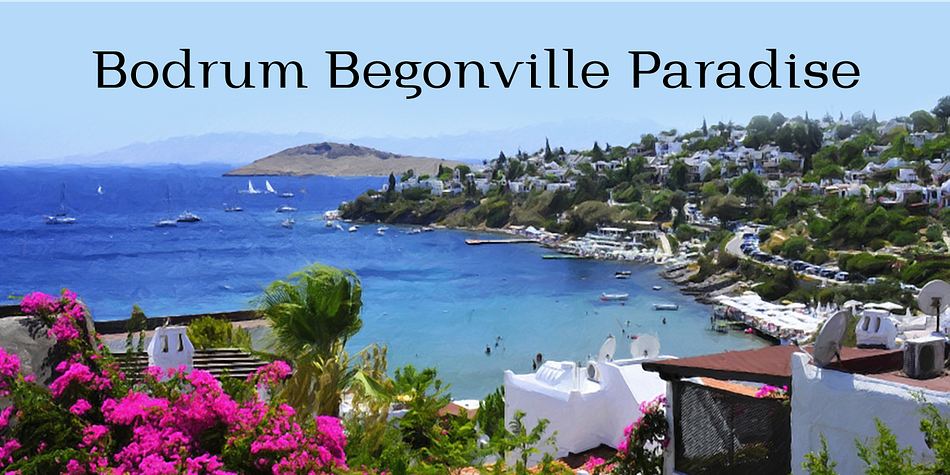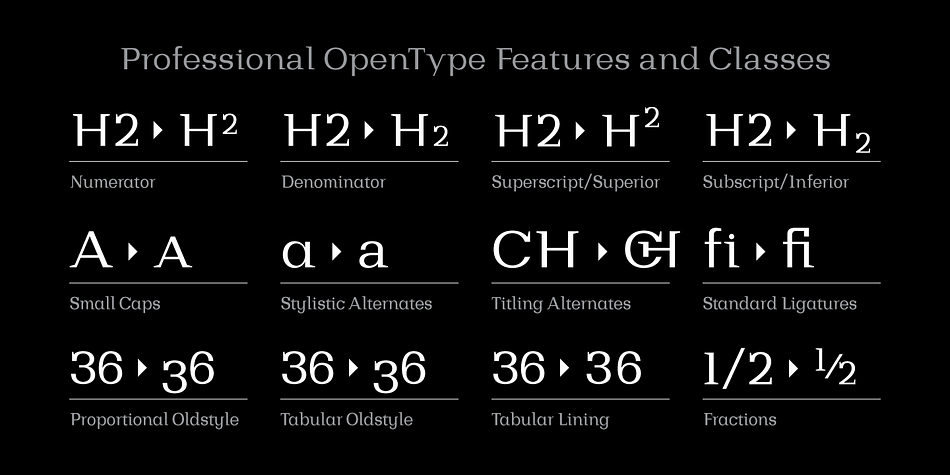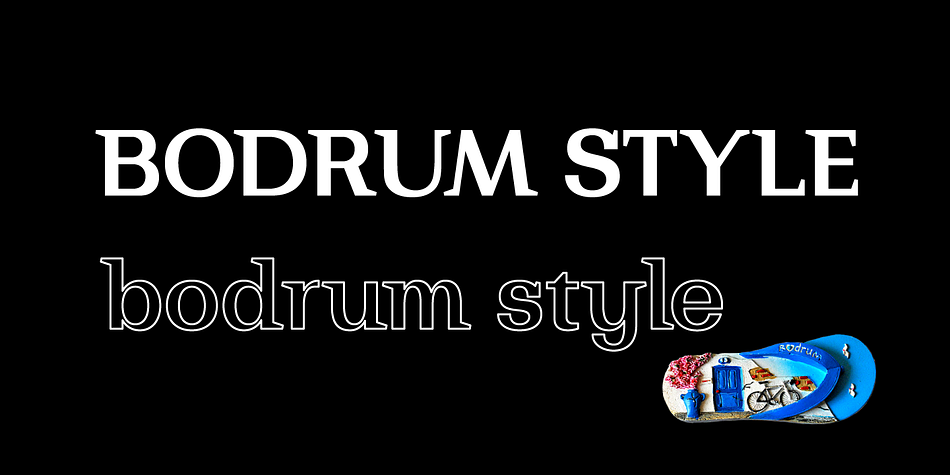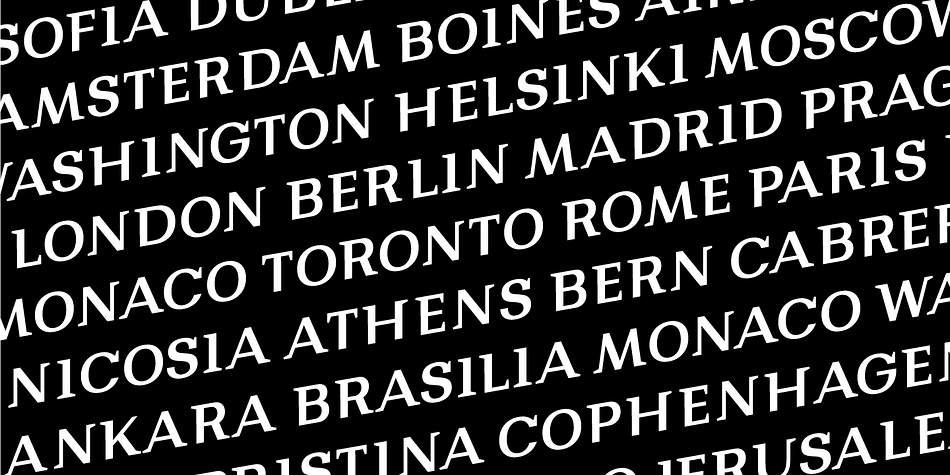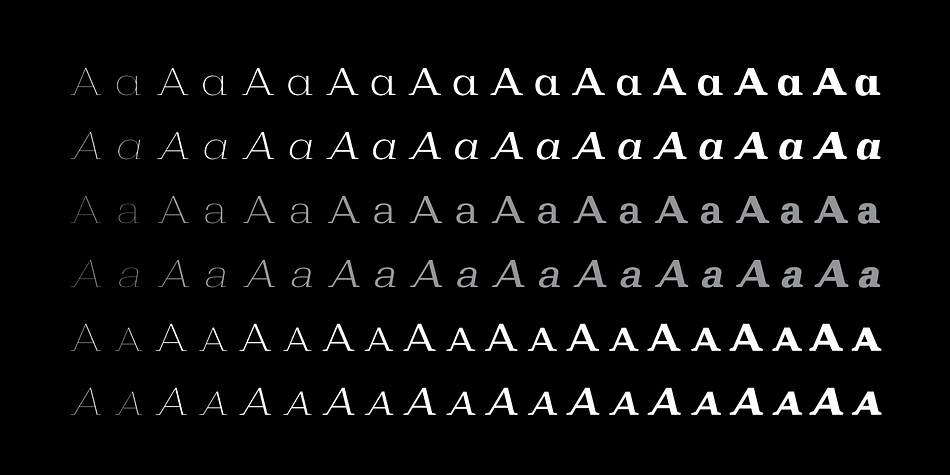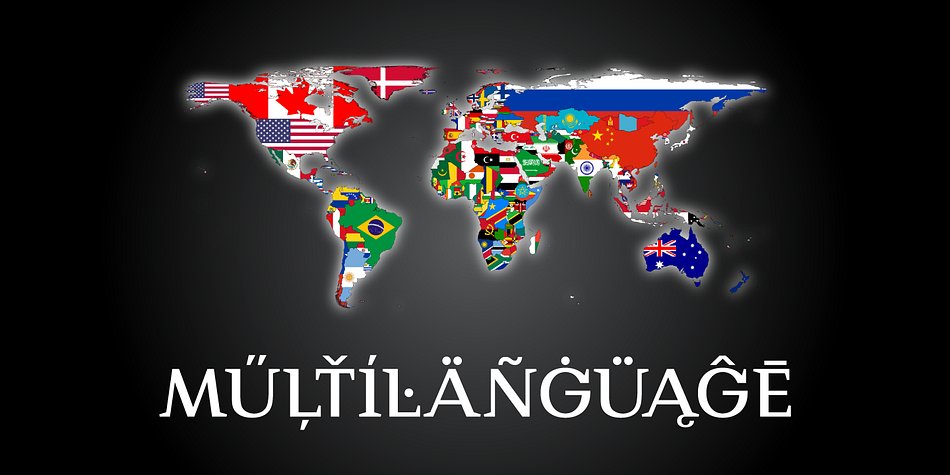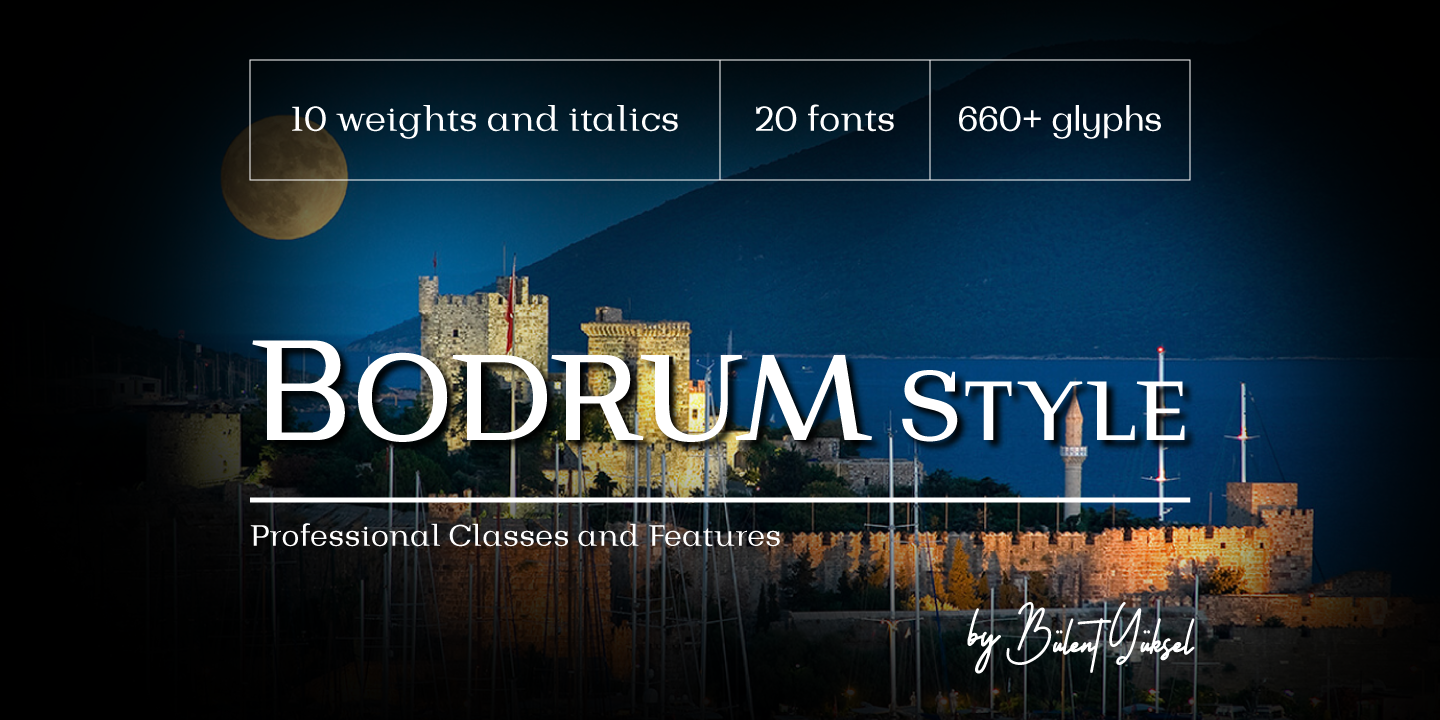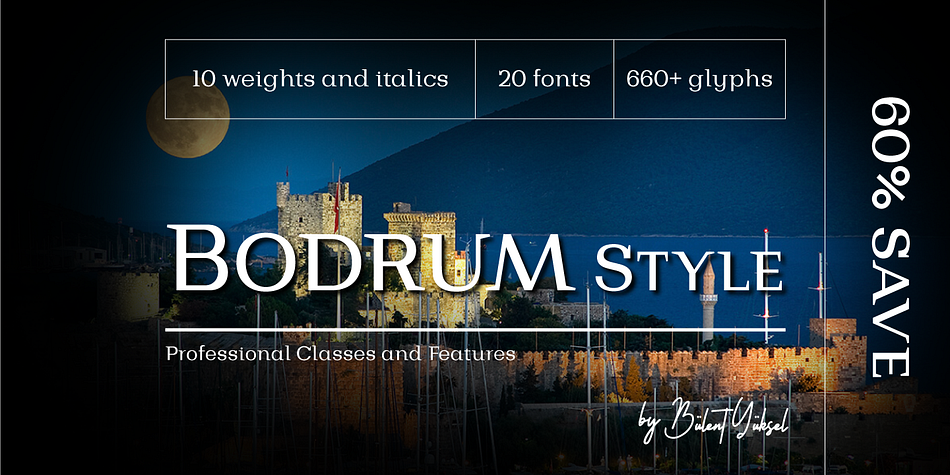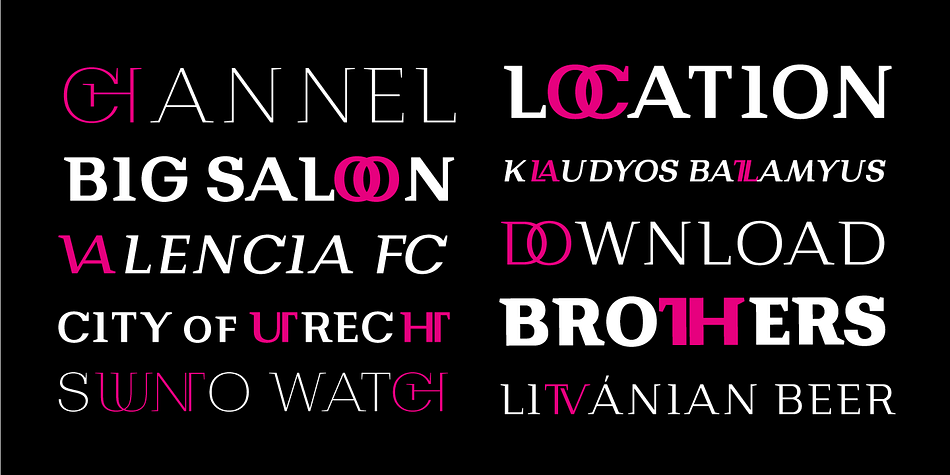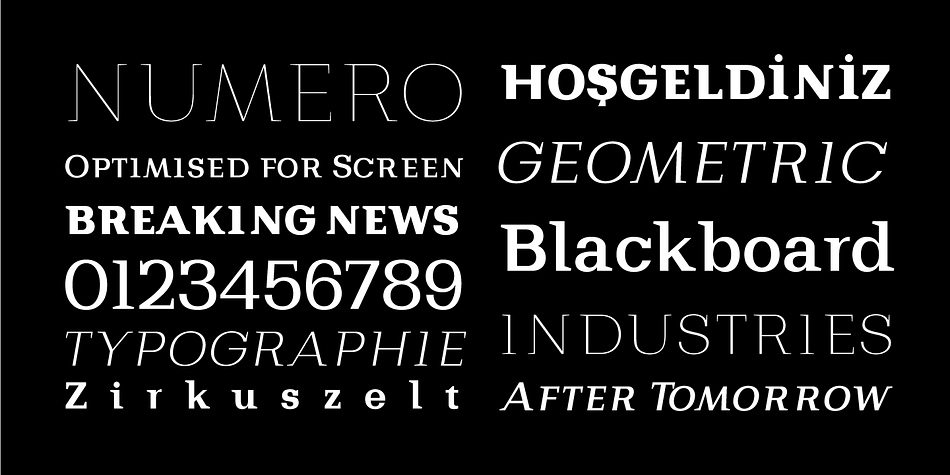
Designed by Bülent Yüksel, Bodrum Style is a display serif, serif and slab serif font family. This typeface has twenty styles and was published by Bülent Yüksel.
“Bodrum Style” is a Style serif type family. Designed by Bülent Yüksel in 20018/19. The font, influenced by style serifs, popular in the 1920s and 30s, is based on optically corrected geometric forms for better readability.
“Bodrum Style” is not purely geometric; it has vertical strokes that are thicker than the horizontals, an “o” that is not a perfect circle, and shortened ascenders. These nuances aid in legibility and give “Bodrum Style” a harmonious and sensible appearance for both texts and headlines.
Bodrum Style provides advanced typographical support for Latin-based languages. An extended character set, supporting Central, Western and Eastern European languages, rounds up the family.
The designation “Bodrum Style 14 Regular” forms the central point. “Bodrum Style” is available in 10 weights (Hair, Thin, Extra-Light, Light, Regular, Meduim, Bold, Extra-Bold, Heavy and Black) and 10 matching italics. The family contains a set of 650+ characters.
Case-Sensitive Forms, Classes and Features, Small Caps from Letter Cases, Fractions, Superior, Inferior, Denominator, Numerator, Old Style Figures just one touch easy In all graphic programs.
Bodrum Style is the perfect font for web use.